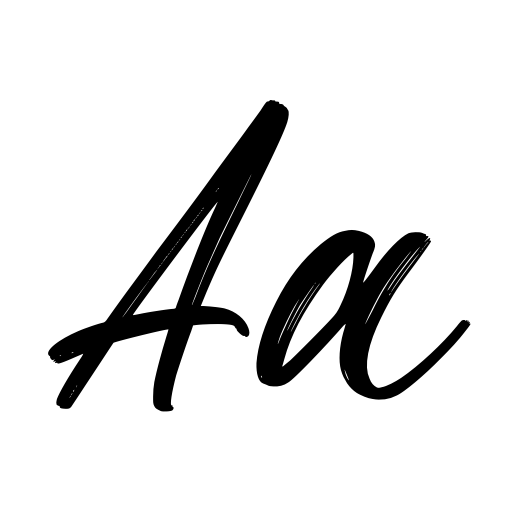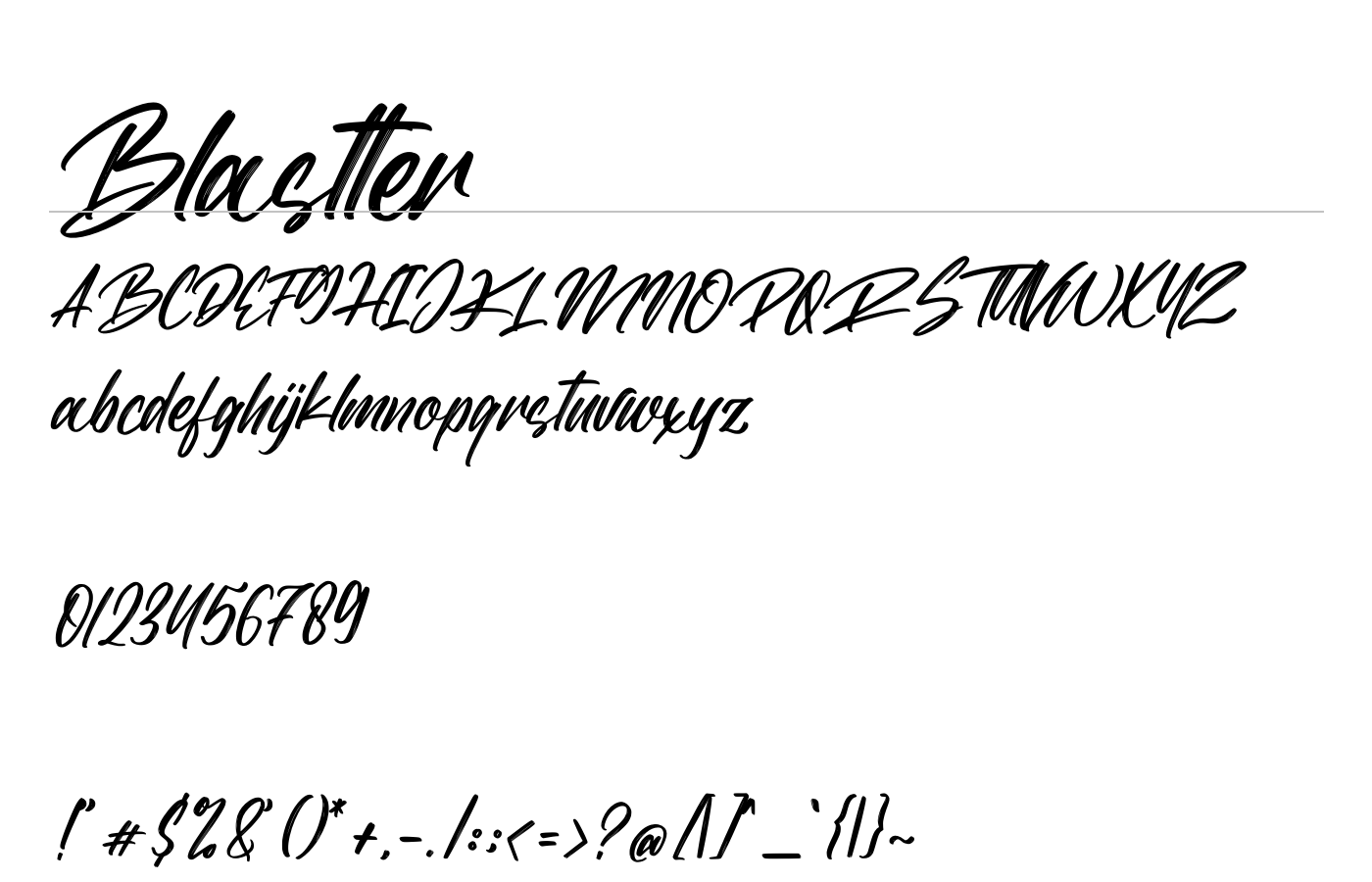
Blastter is a stylish script font with a lively, handwritten feel characterized by its smooth, flowing strokes and energetic slant. Its narrow, slightly condensed letterforms and dynamic contrast give it a modern, casual elegance perfect for creative branding, logos, and eye-catching headlines. This font adds a personal, artistic touch to designs, making it ideal for fashion, lifestyle, and expressive editorial projects.
Blastter Font
About Blastter Font